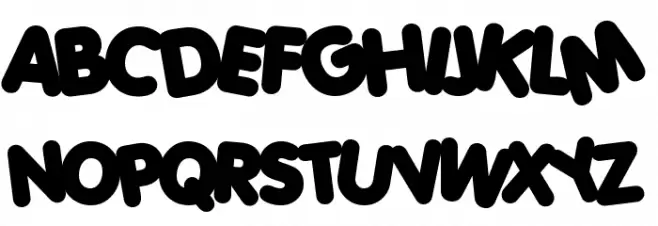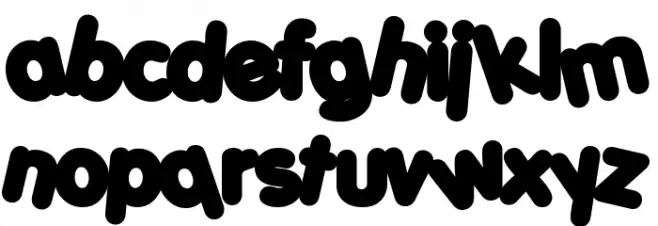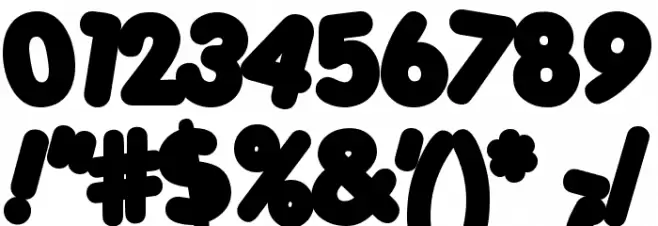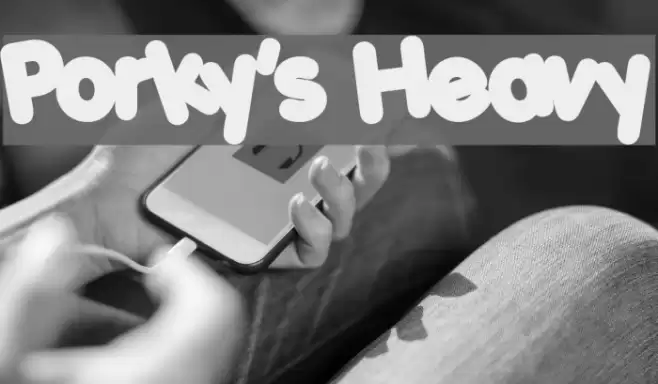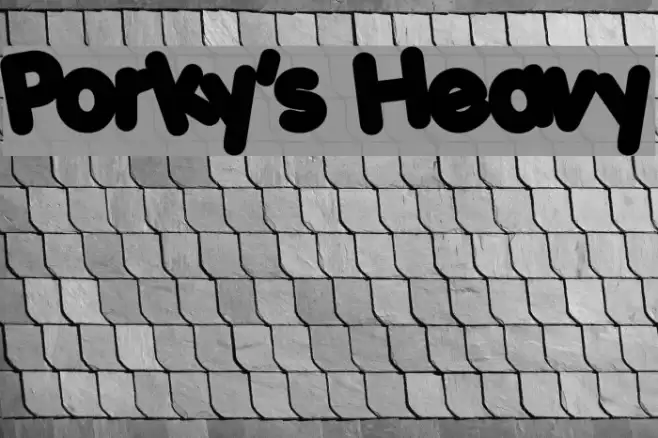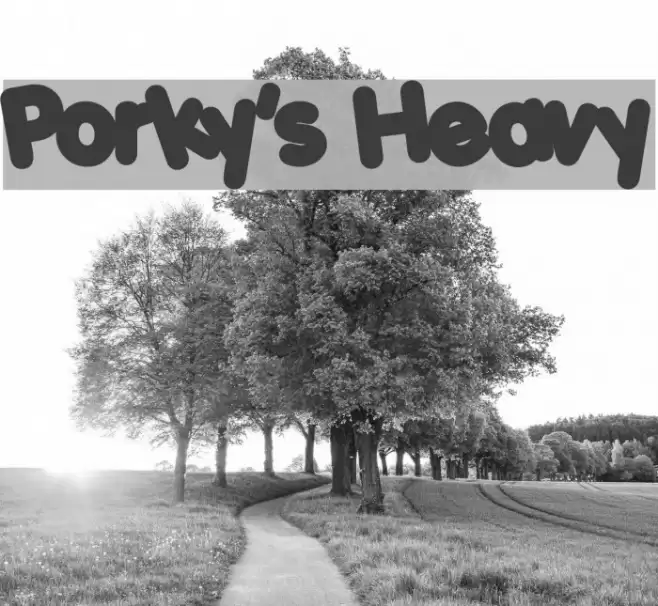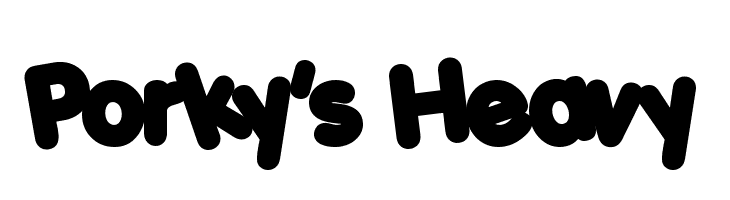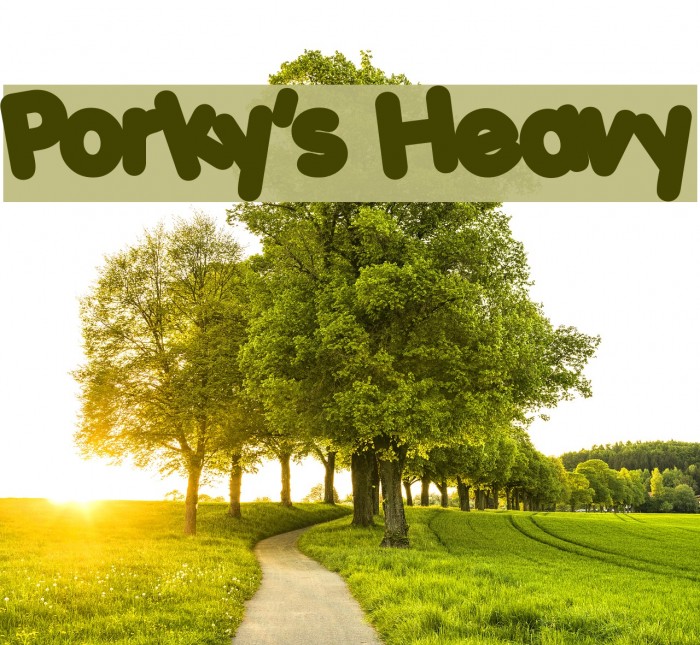
Porky's Heavy
This font features a bold, playful style with rounded, thick strokes that give it a cartoonish and friendly appearance. The characters are highly exaggerated with a bubbly form, making them stand out in any design. The uppercase and lowercase letters maintain a consistent weight, contributing to a cohesive look. The numbers and special characters follow the same playful aesthetic, ensuring uniformity across all text elements. This font is ideal for projects that require a fun and informal touch, such as children's books, playful branding, or eye-catching posters.
A bold, playful font with rounded, thick strokes and a cartoonish style.
- Proposed Projects: Ideal for children's books, playful branding, posters, and any design needing a fun touch.
- Overall Style: Playful, Cartoonish
- Use Case: Headlines, Logos, Posters